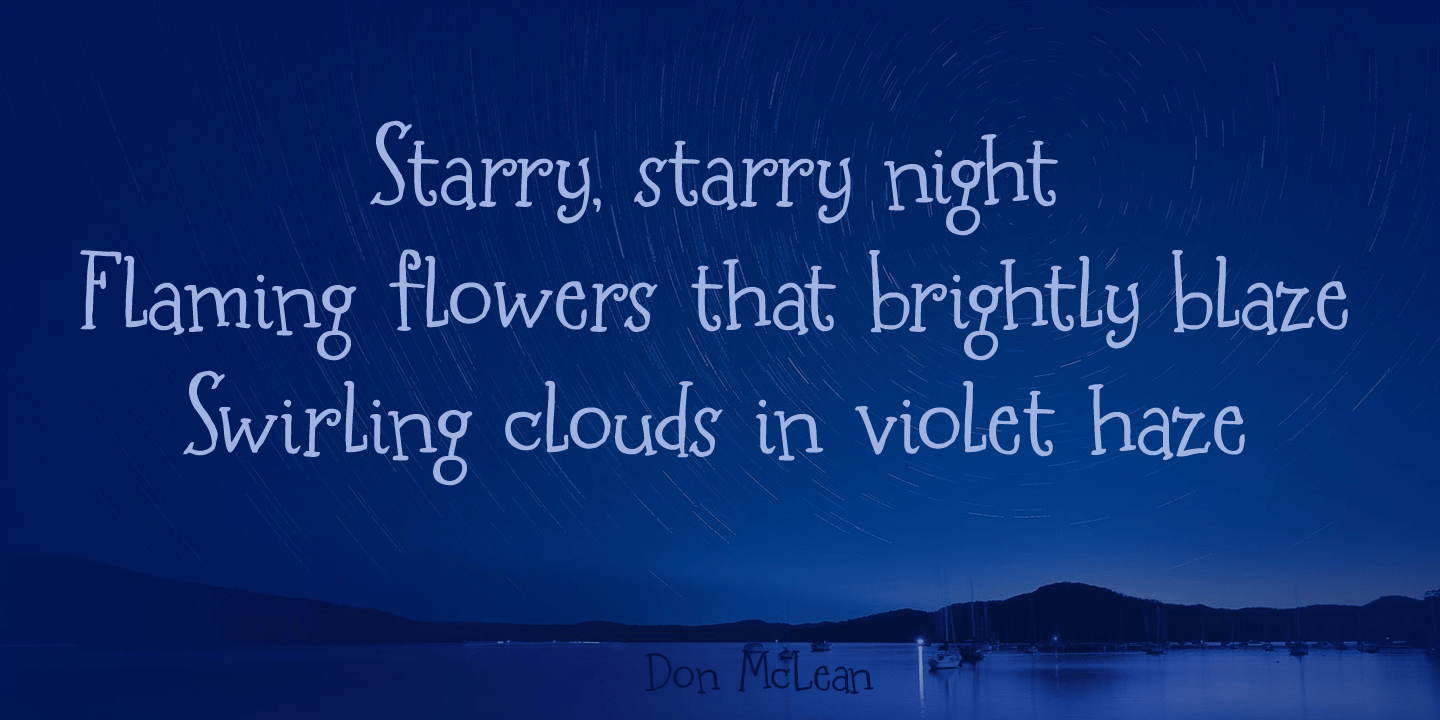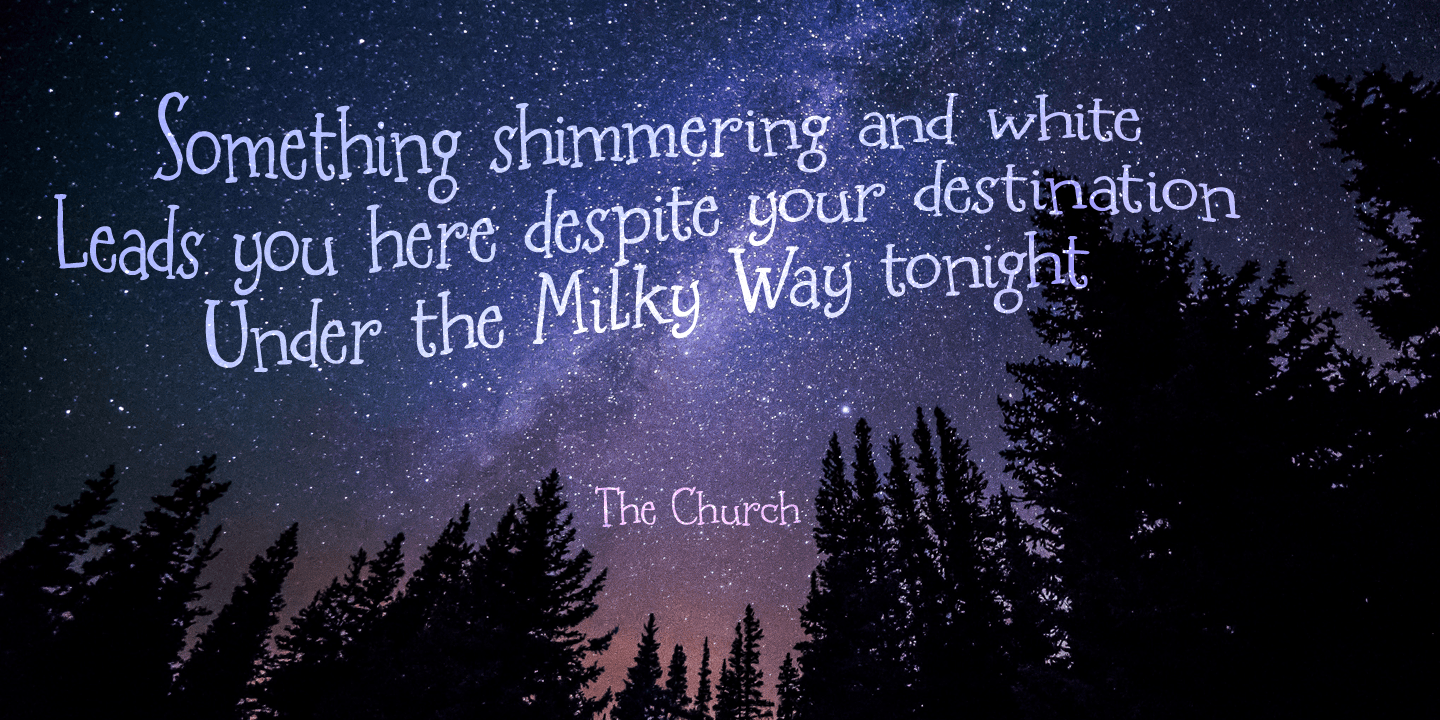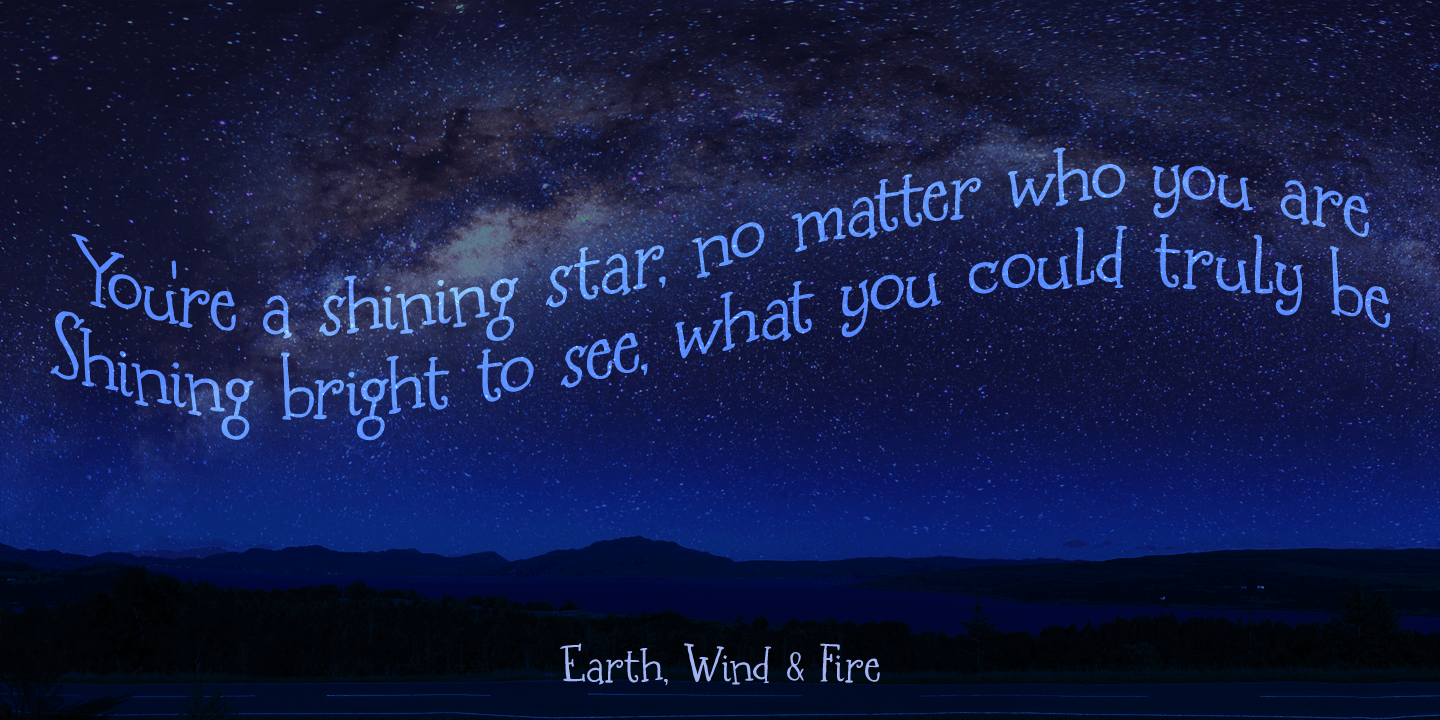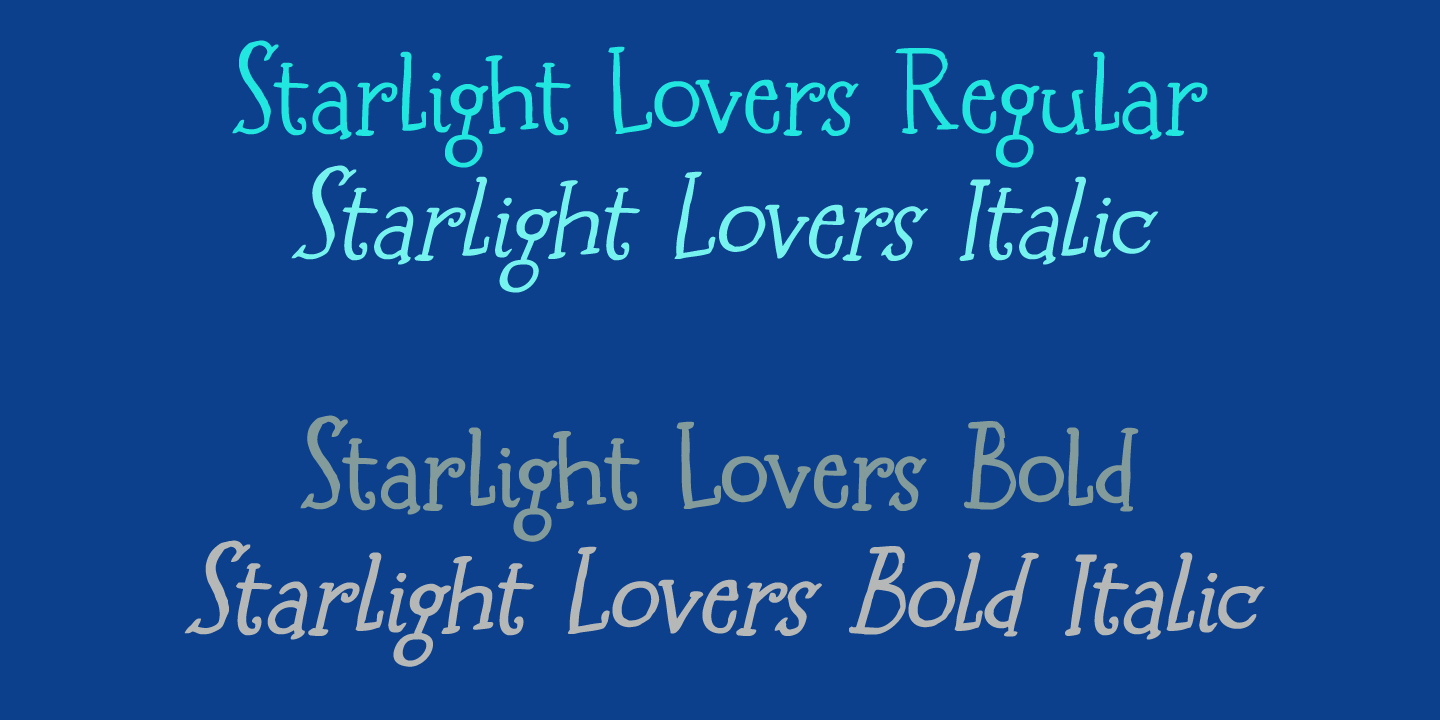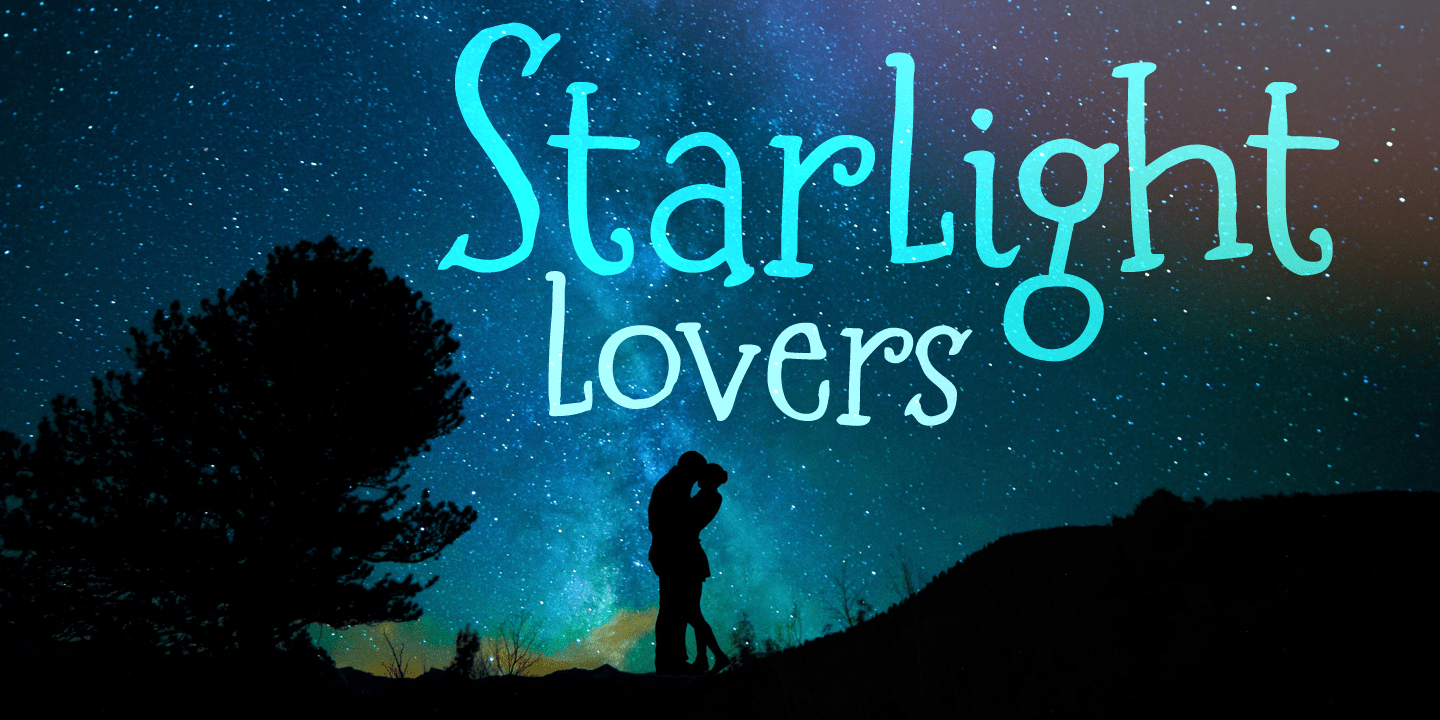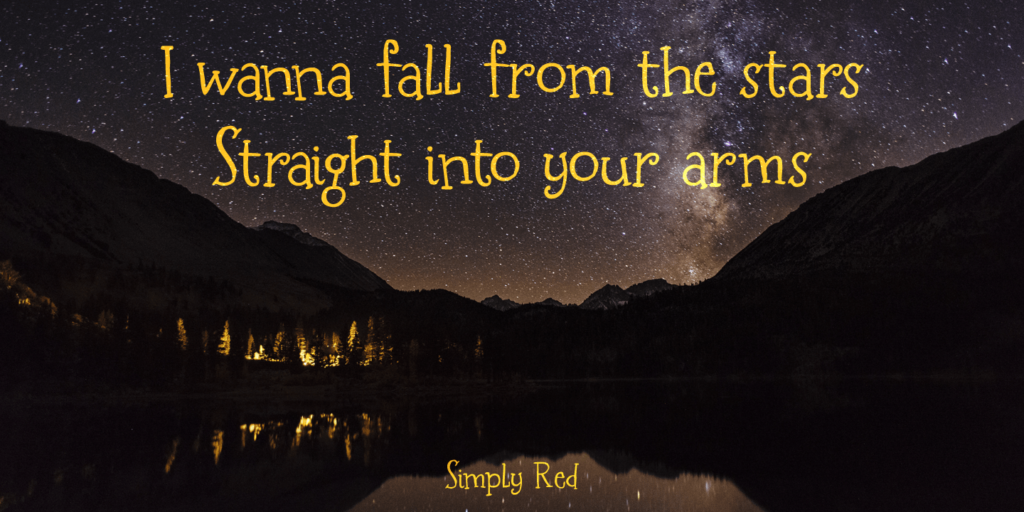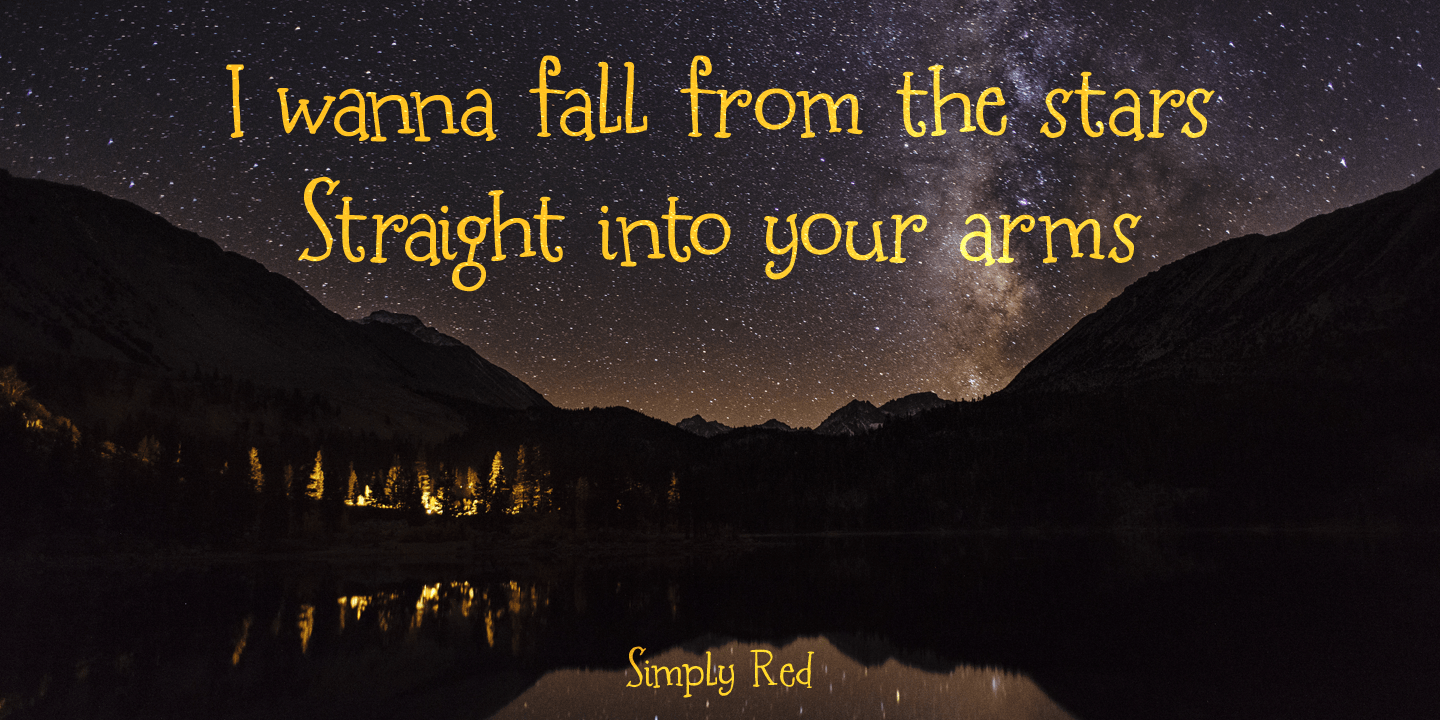
Starlight Lovers
About Starlight Lovers
I have always loved gazing at the stars. Too bad that you don\’t get to see a true starry night these days – mostly because of light pollution. Starlight Lovers is a messy serif. It is hand painted, using a brush and Chinese ink, so the edges may be a…